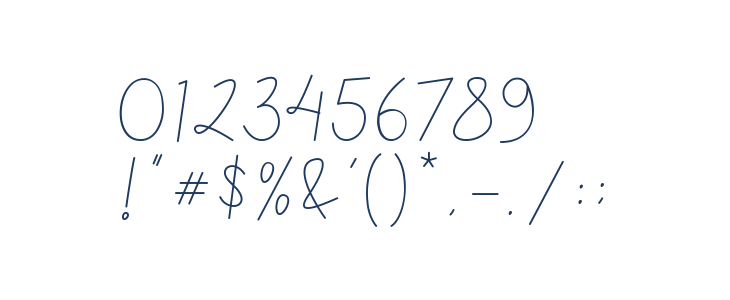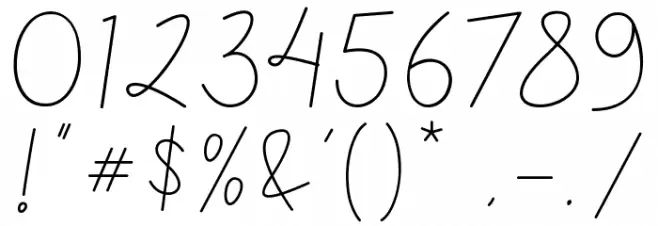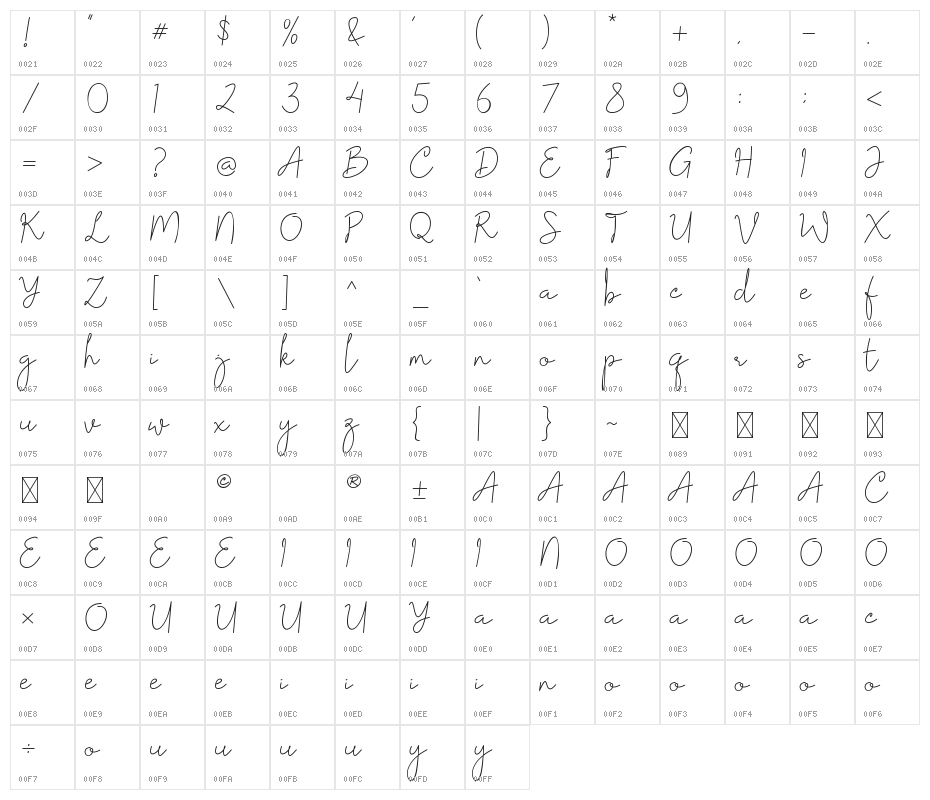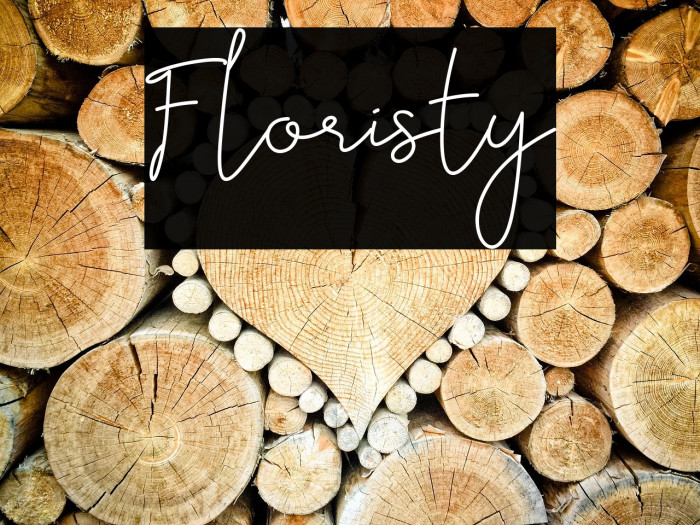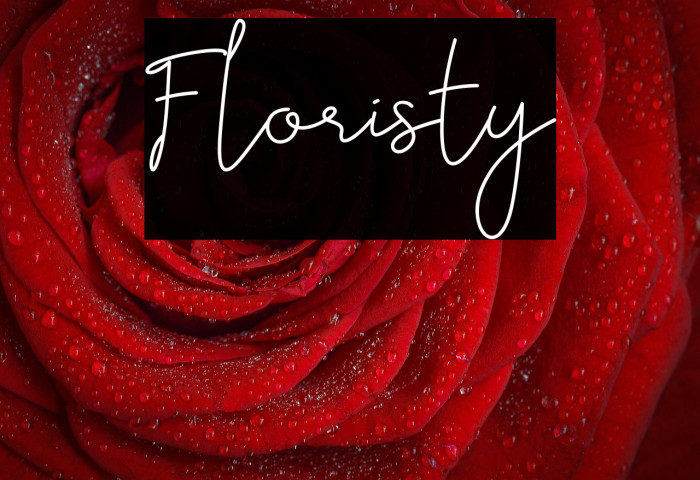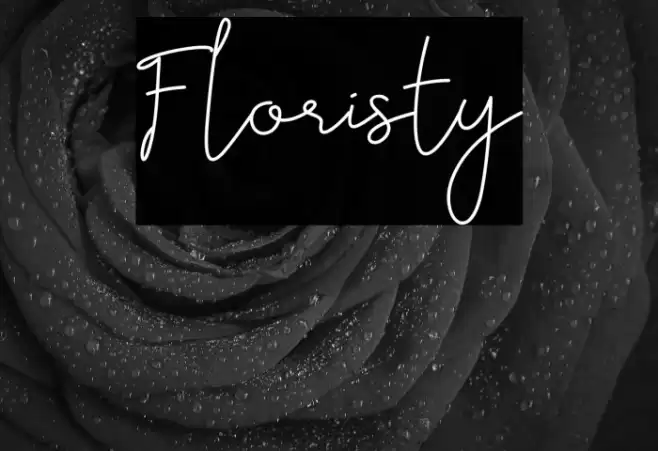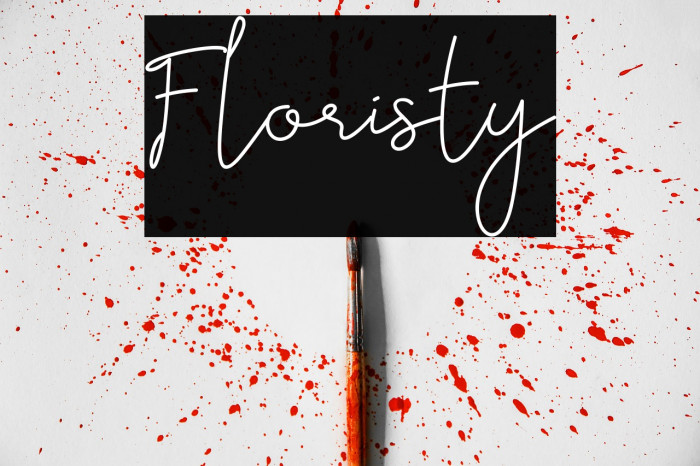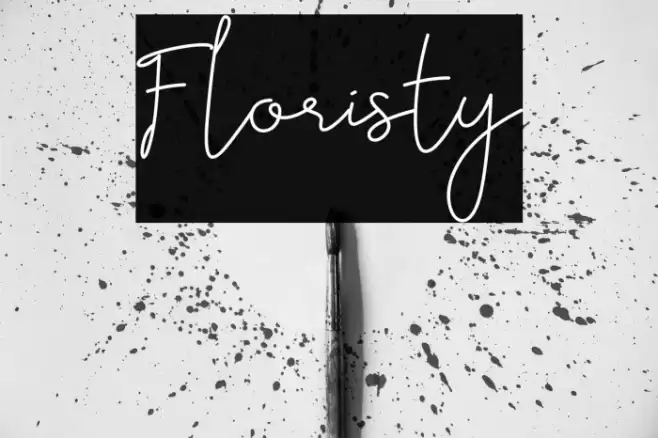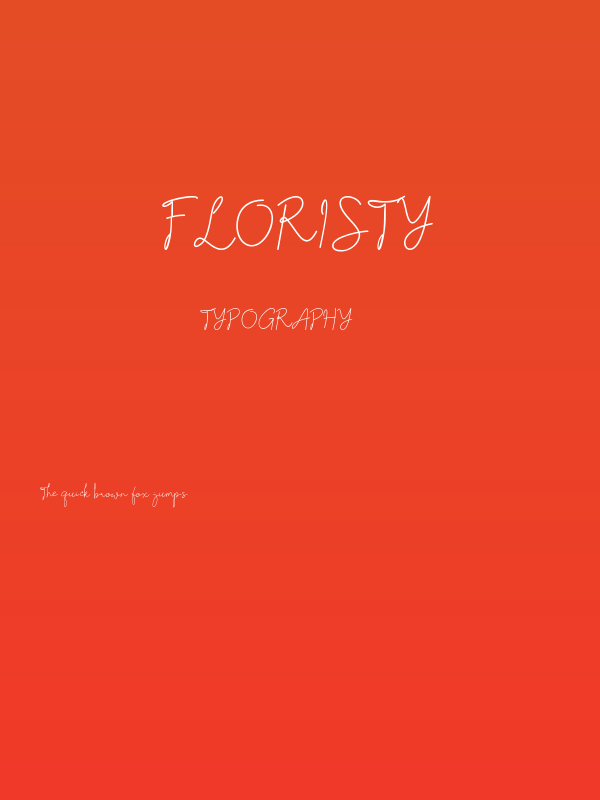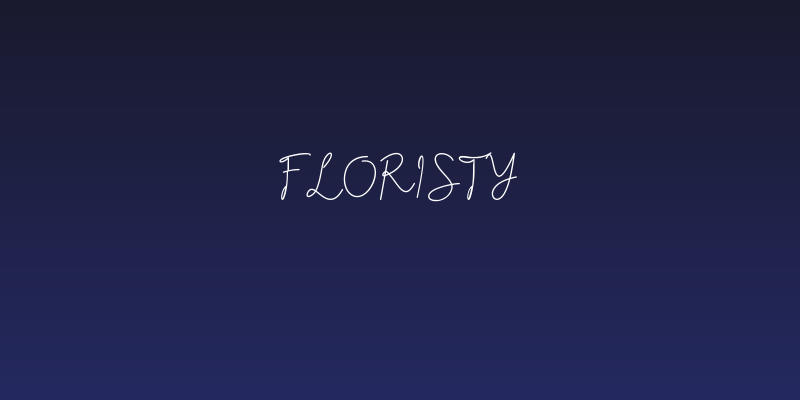
Floristy Font
Floristy Description
This font features an elegant, flowing script style that mimics natural handwriting. The uppercase letters are tall and slender, with a slight slant that adds a sense of movement and grace. The lowercase letters are more rounded and connected, enhancing the handwritten feel. The numerals are consistent with the overall style, maintaining the same fluidity and elegance. Special characters are thoughtfully designed to match the script's aesthetic, making them suitable for decorative purposes. The font's thin strokes and delicate curves give it a refined and sophisticated appearance, ideal for projects that require a personal touch.